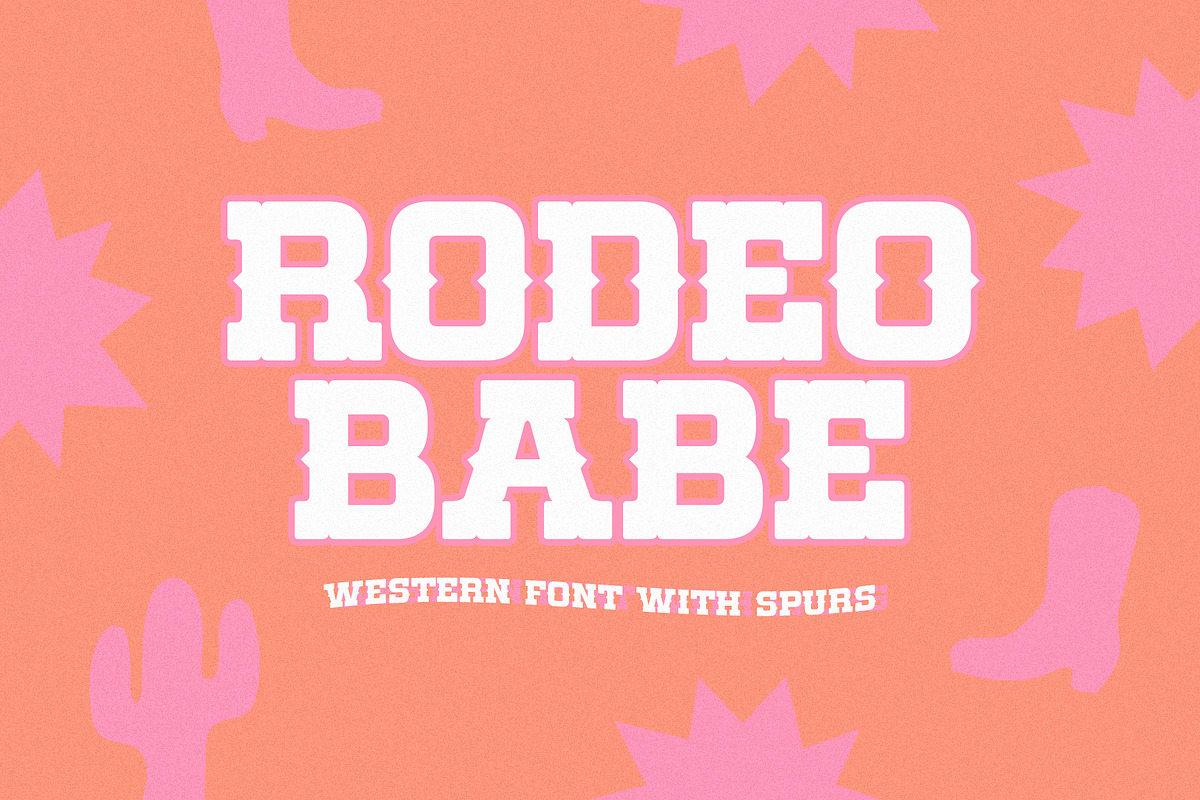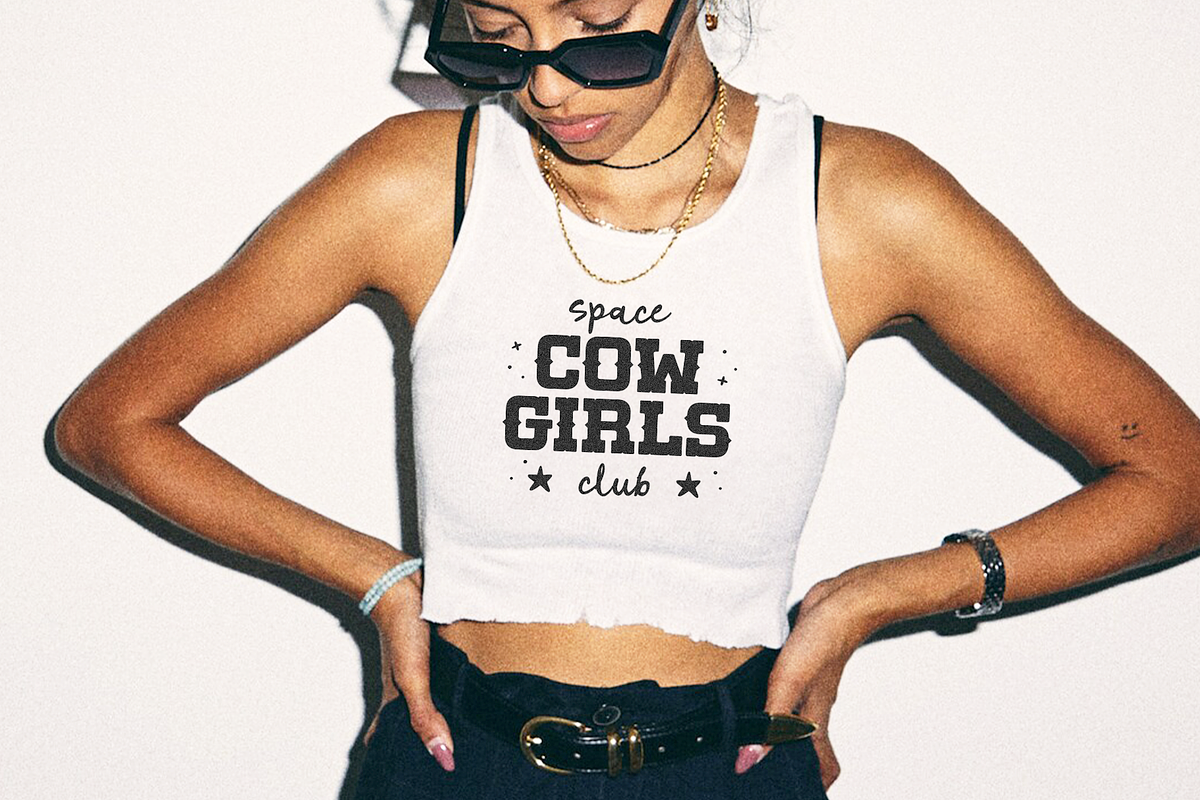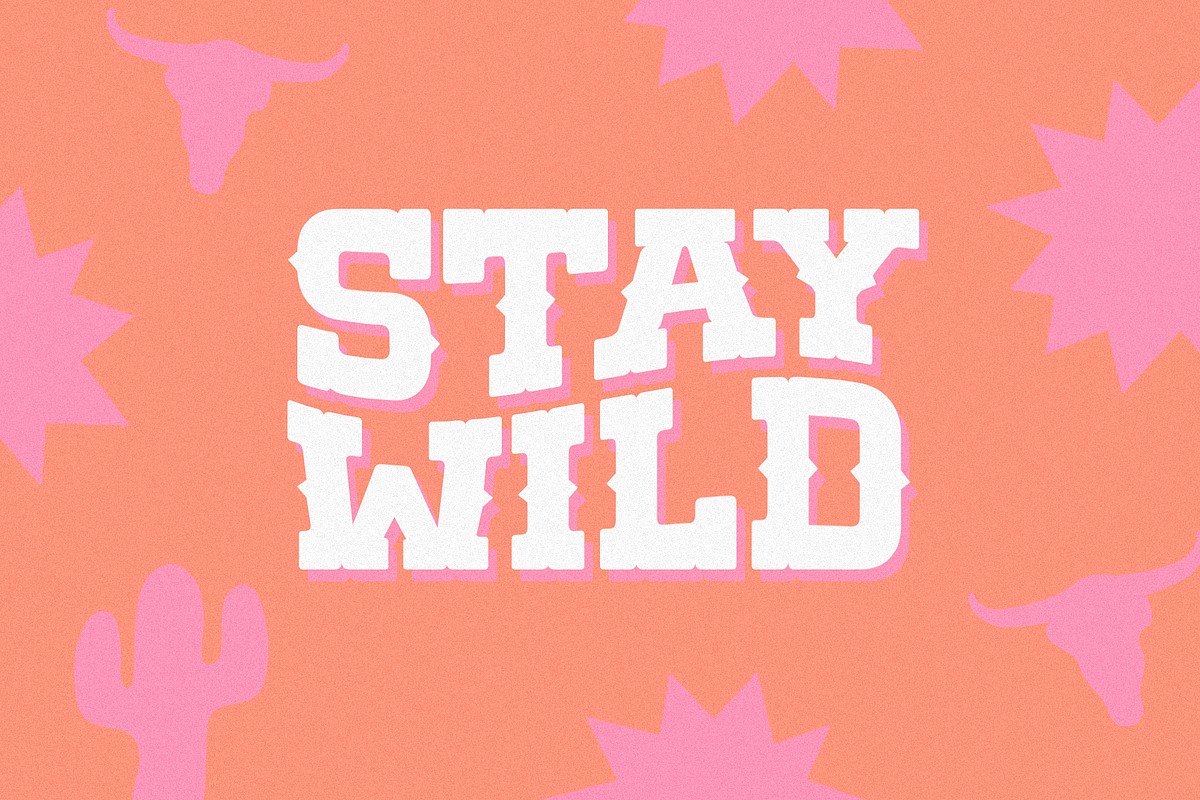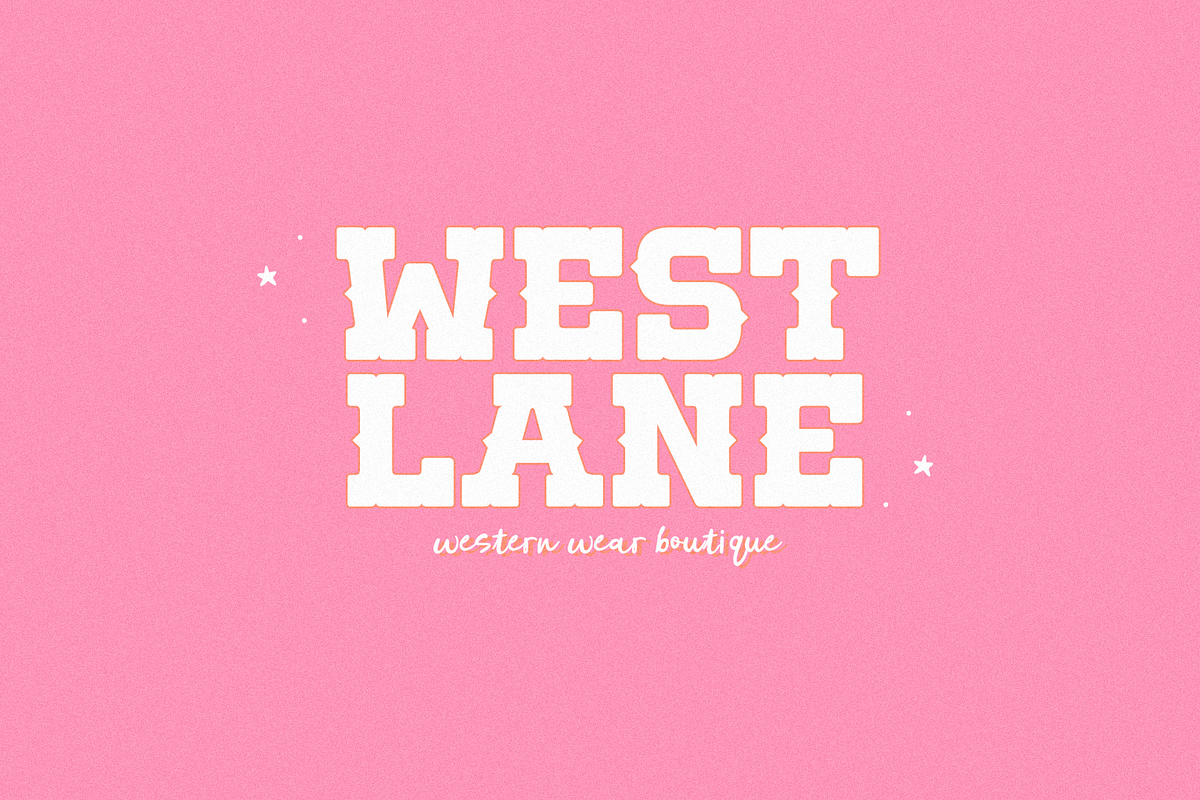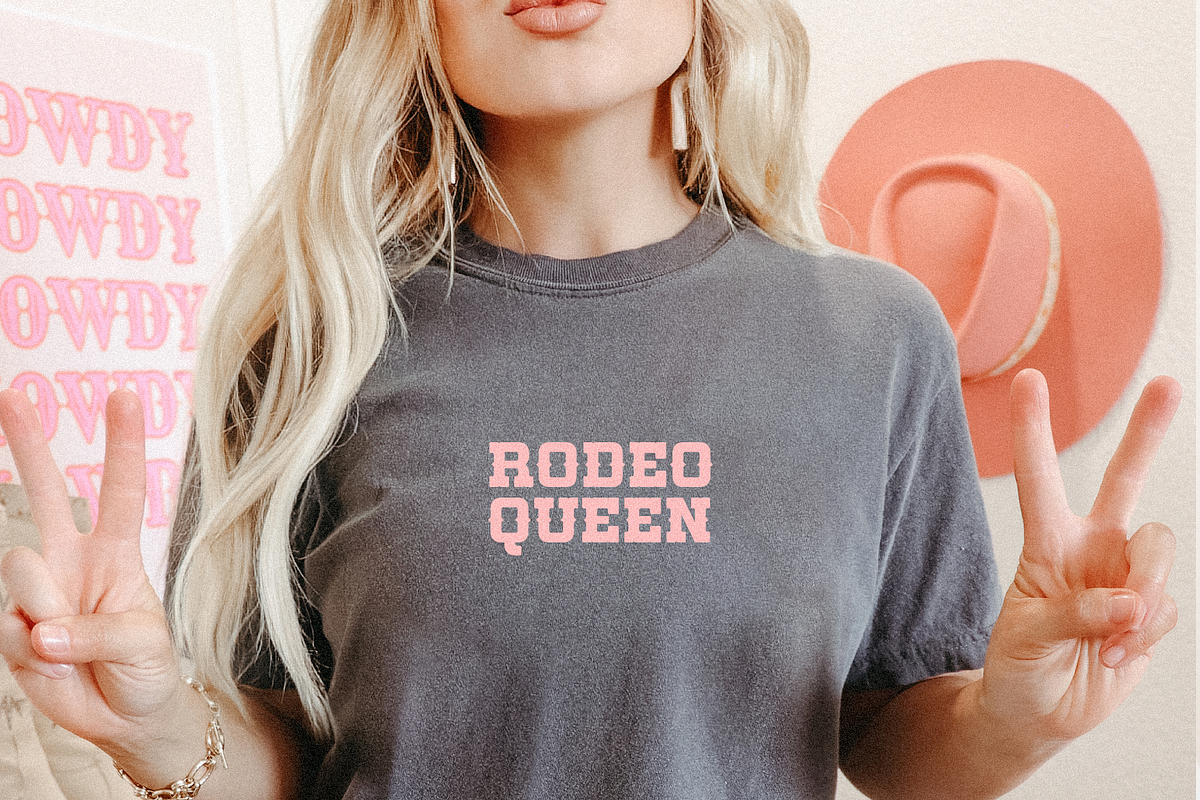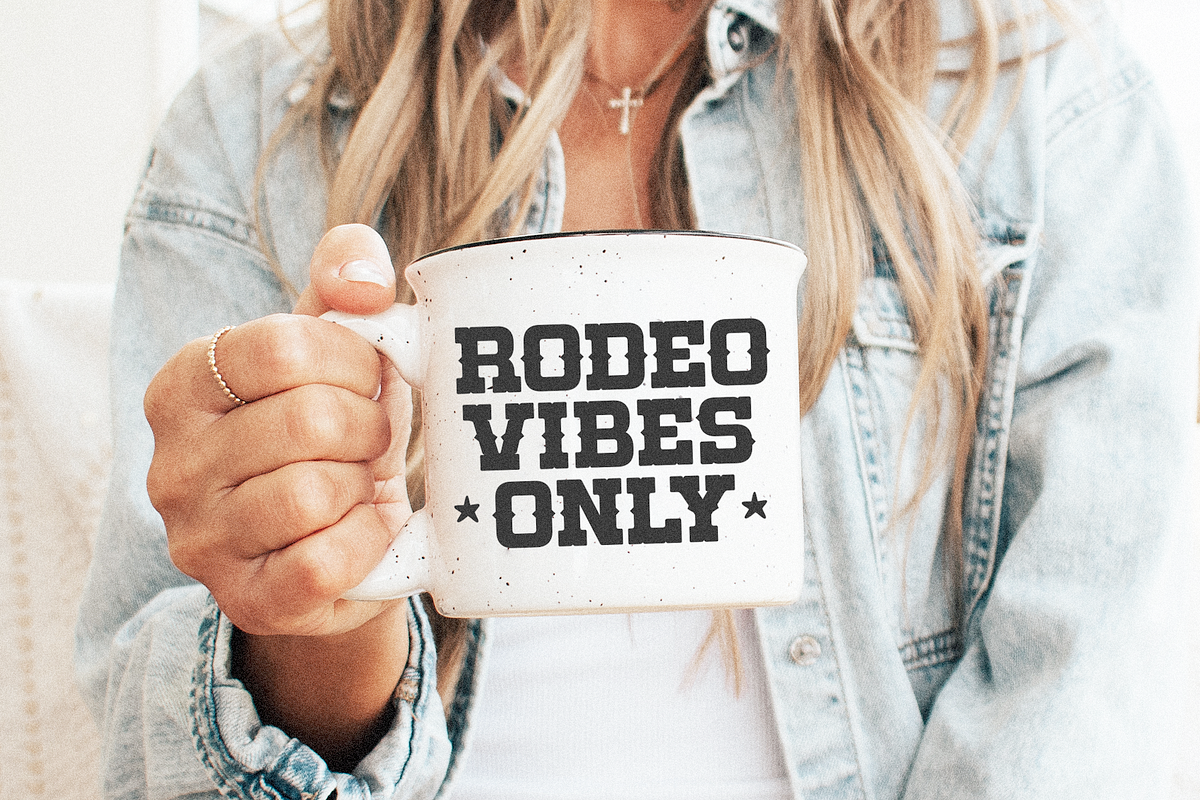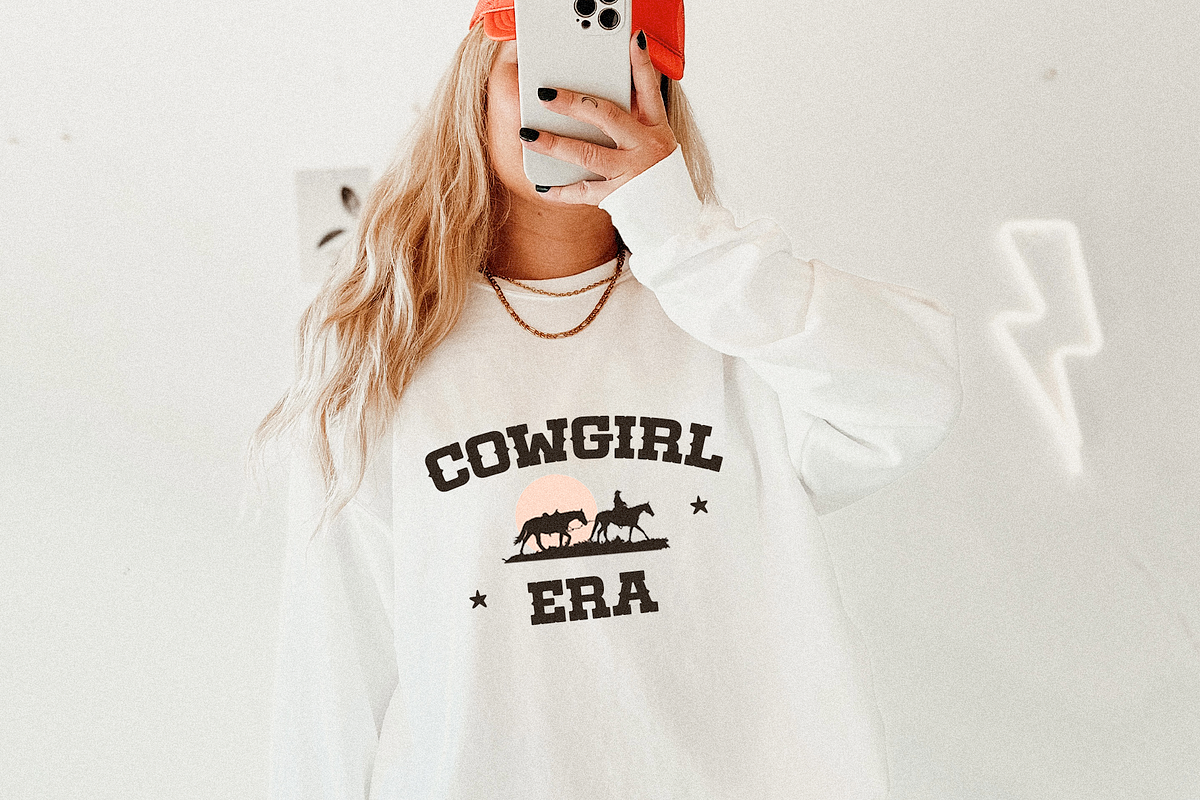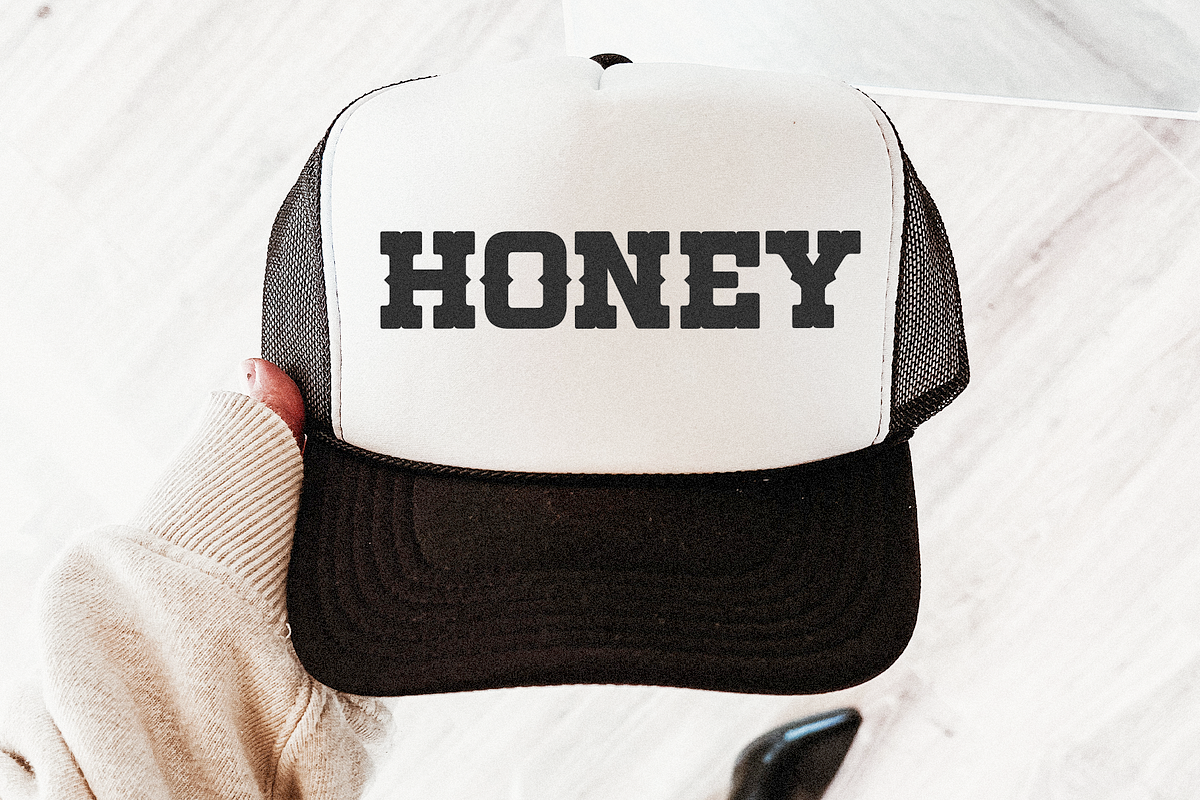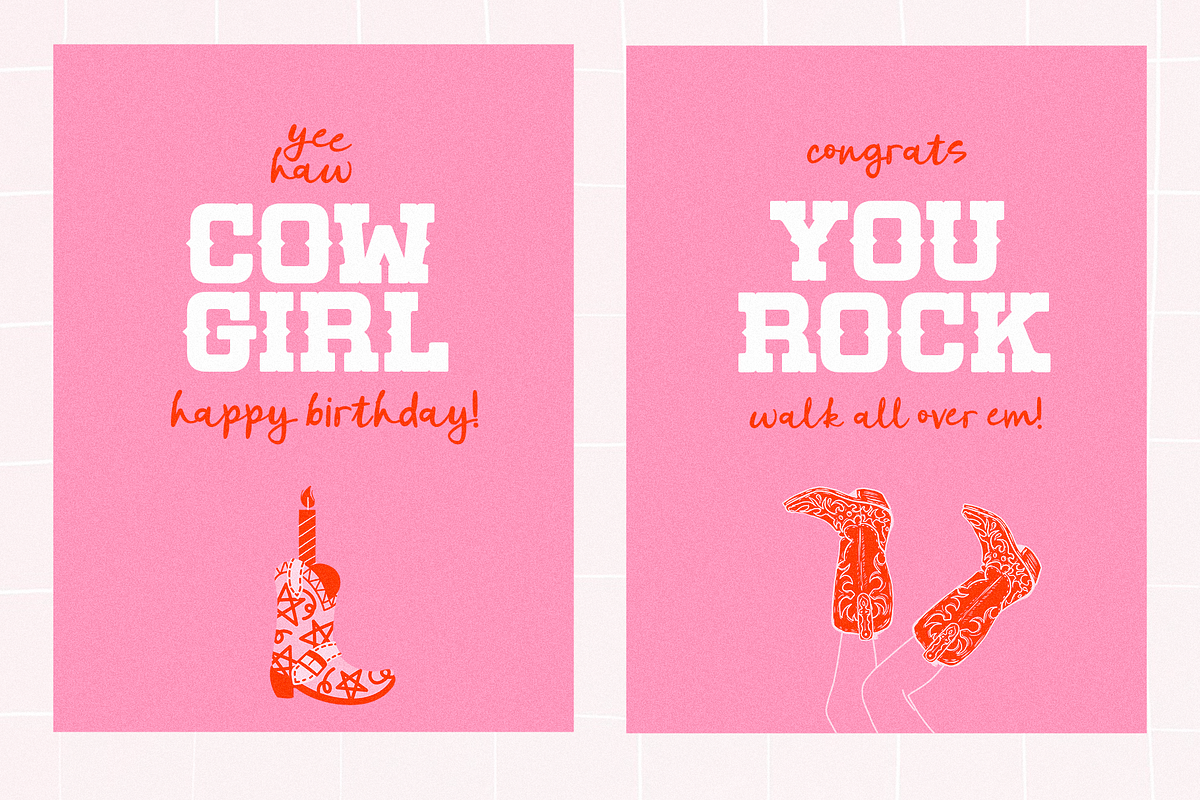
Rodeo Babe | Western Spur Font
Rodeo Babe is a western font with spurs.
This font is perfect for western designs, cricut projects, canva, shirts, stickers, teachers, goodnotes, planners, lasers, western logos and more!